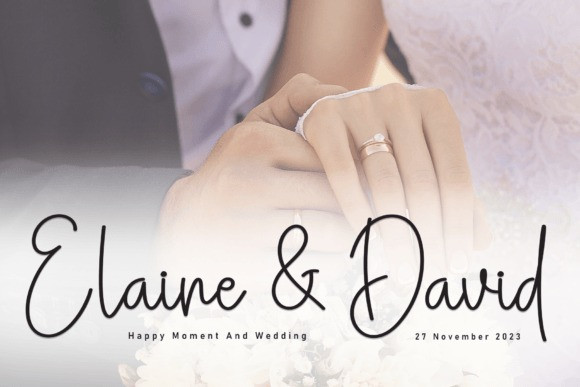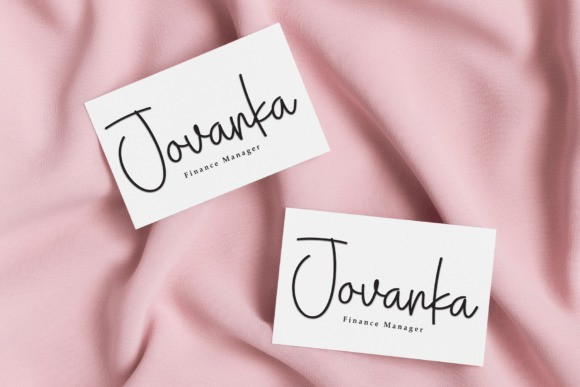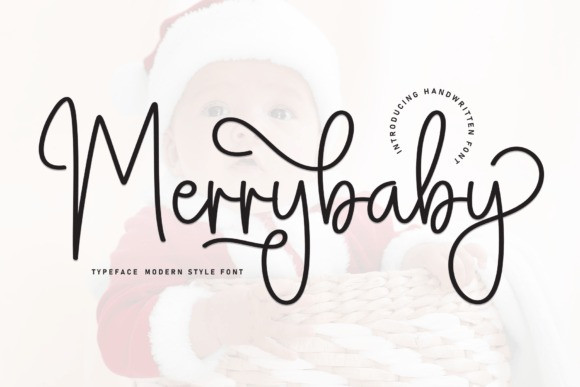
Merrybaby Script Font
Merrybaby Script Font is an elegant and dainty handwritten font that features sweet and delicate swashes. This original look will appeal to a wide range of crafty ideas, from letterheads and titles to stationery.